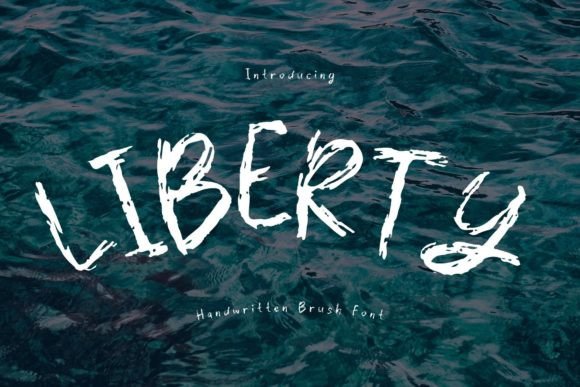
Welcome to Liberty Font, a script font that's the perfect blend of playfulness and authenticity. With its captivating and inimitable style, Liberty Font will breathe life into all your creative endeavors.
Liberty Font is the epitome of versatility, effortlessly adaptable to a multitude of projects, from personal blogs to logos, branding, ads, invitations, greeting cards, planners, photo albums, decorations, and beyond. Add it to your design arsenal and witness the transformative power it wields.
Step into a world of endless creative possibilities with Liberty Font. Its handwritten brush strokes evoke a sense of authenticity, instantly captivating your readers and viewers. Whether you're designing a blog post, crafting a logo that leaves a lasting impression, or creating social media graphics meant to wow, Liberty Font will elevate your work, making it stand out from the ordinary.
With Liberty Font, you'll create designs that resonate on an emotional level. Its playful and whimsical nature will infuse your work with a touch of joy and lightheartedness, making it perfect for projects aimed at capturing the attention of children or adding a touch of whimsical charm to your designs.
Liberty Font is the perfect choice for those who dare to be different, those who seek fonts that break free from the mundane and ordinary. Its distinctive style will set your work apart from the crowd, ensuring that your designs leave an indelible mark on your audience's minds.